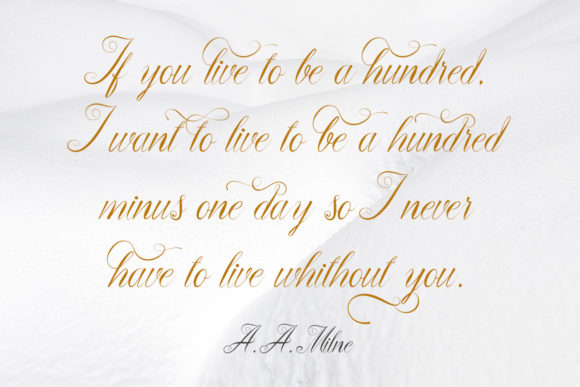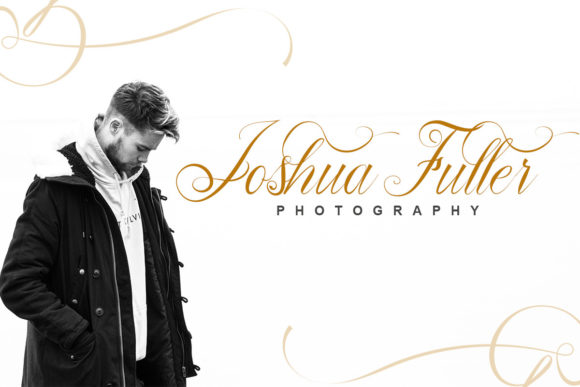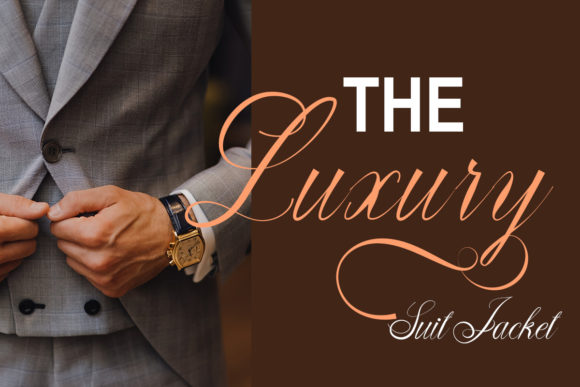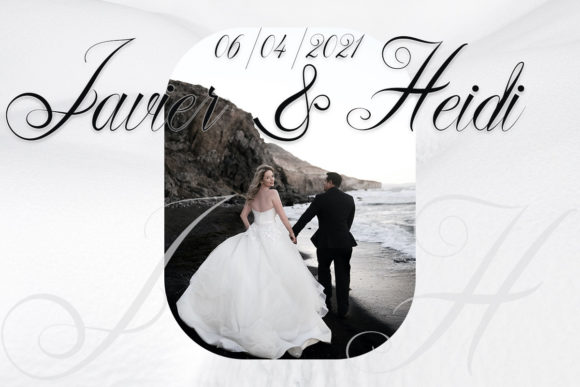
Elegant Font: Elevate Your Designs with Sophistication
Are you looking for a font that exudes luxury, sophistication, and elegance? Look no further than the Elegant font, a stunning handwritten typeface that is sure to become your new favorite. With its perfect blend of classic calligraphic influences and modern flair, Elegant is the perfect choice for designers and crafters who want to add a touch of refinement to their projects.
The Characteristics of Elegant Font
Elegant is a masterfully designed font that boasts a range of characteristics that set it apart from other typefaces. Its exquisite handwritten style is both classy and contemporary, making it perfect for a wide range of design applications. Whether you’re working on a branding project, a wedding invitation, or a craft tutorial, Elegant is sure to bring a level of sophistication and elegance that will elevate your design to new heights.
What Makes Elegant Font So Special?
So, what makes Elegant font so special? Here are just a few reasons why designers and crafters are falling in love with this beautiful typeface:
- Classy Calligraphic Influences: Elegant font boasts a range of classic calligraphic influences that give it a timeless, sophisticated feel.
- Contemporary and Fresh: Despite its classic influences, Elegant font feels modern and fresh, making it perfect for designers who want to create contemporary designs with a touch of elegance.
- Versatile: Elegant font is incredibly versatile, making it perfect for a wide range of design applications, from branding and advertising to crafting and DIY tutorials.
- Easy to Read: Despite its elegant and refined style, Elegant font is incredibly easy to read, making it perfect for body text as well as headlines and titles.
How to Use Elegant Font in Your Designs
So, how can you use Elegant font in your designs? Here are a few ideas to get you started:
- Branding and Logo Design: Use Elegant font to create a sophisticated and elegant brand identity that will help your business stand out.
- Wedding Invitations and Stationery: Elegant font is perfect for wedding invitations, stationery, and other paper crafts that require a touch of luxury and sophistication.
- Crafting and DIY Tutorials: Use Elegant font to add a touch of elegance to your crafting and DIY tutorials, from knitting patterns to woodworking plans.
- Advertising and Marketing: Elegant font is perfect for advertising and marketing materials, such as brochures, flyers, and social media graphics.
Tips for Pairing Elegant Font with Other Typefaces
While Elegant font is stunning on its own, it can also be paired with other typefaces to create a range of different looks and styles. Here are a few tips for pairing Elegant font with other typefaces:
- Pair with Sans Serifs: Pair Elegant font with a sans serif typeface, such as Arial or Helvetica, to create a striking contrast between elegant and modern.
- Pair with Script Fonts: Pair Elegant font with another script font, such as Pacifico or Great Vibes, to create a luxurious and sophisticated look.
- Pair with Serif Fonts: Pair Elegant font with a serif typeface, such as Times New Roman or Georgia, to create a classic and elegant look.
| Font Name | Elegant Font |
| Author | Al Mughni Studio3 |
In conclusion, Elegant font is a truly exquisite handwritten typeface that is sure to become a favorite among designers and crafters. With its perfect blend of classic calligraphic influences and modern flair, Elegant is the perfect choice for anyone looking to add a touch of sophistication and elegance to their designs. Whether you’re working on a branding project, a wedding invitation, or a craft tutorial, Elegant font is sure to elevate your design to new heights.